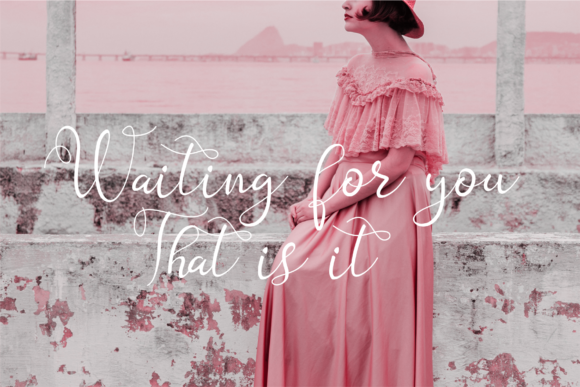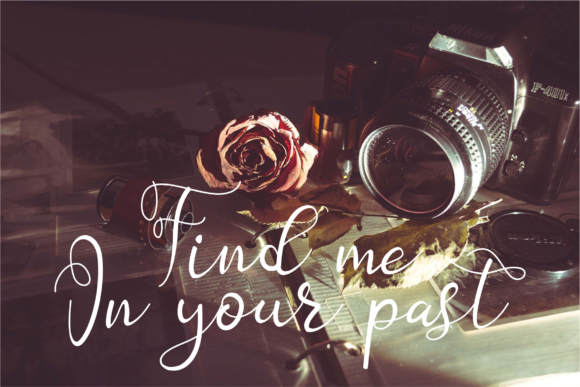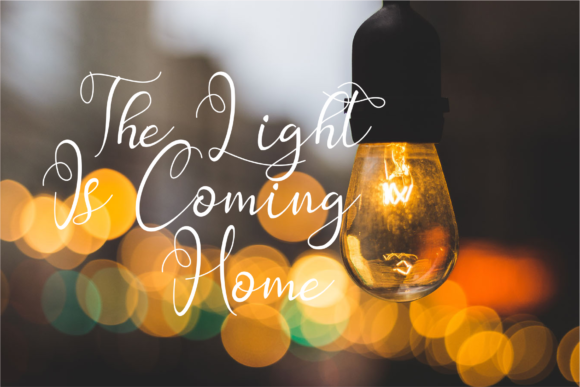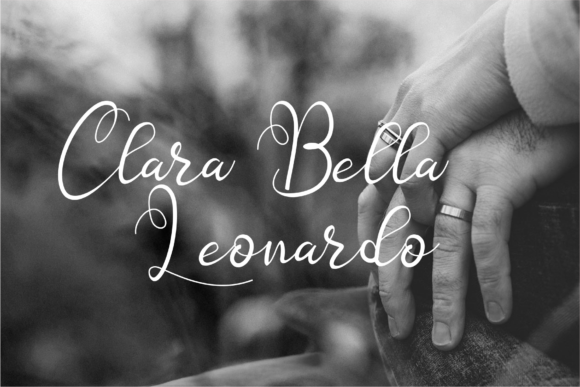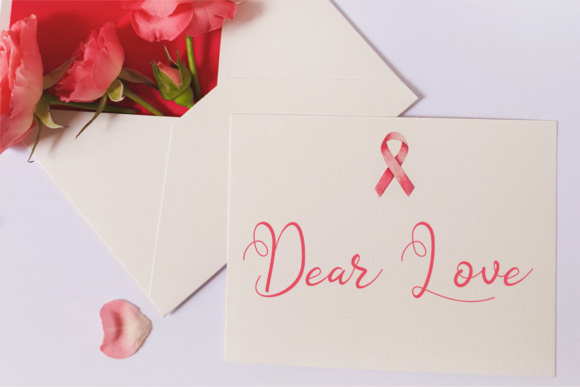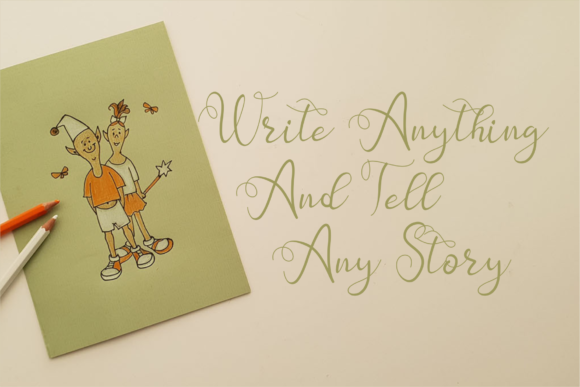
Austin Font: Elevate Your Designs with Elegance and Timeless Style
Are you on the hunt for a font that exudes elegance, sophistication, and a touch of timeless charm? Look no further than the Austin Font, a beautiful, flowing handwritten font that is sure to capture your heart. With its incredibly distinct style, Austin Font is the perfect addition to your favorite projects, allowing you to create spectacular designs that stand out from the crowd.
The Characteristics of Austin Font
Austin Font is described by its elegant touch, which sets it apart from other fonts. Its flowing, handwritten style gives it a unique and sophisticated look that is perfect for a variety of design projects. Whether you’re working on a logo, branding materials, or marketing collateral, Austin Font is sure to bring a level of refinement and poise to your designs.
Why Choose Austin Font?
So, what makes Austin Font so special? Here are just a few reasons why designers and crafters are falling in love with this beautiful font:
- Elegant and Sophisticated: Austin Font boasts an elegant and sophisticated style that is perfect for high-end designs. Its flowing lines and refined look make it ideal for luxury brands, wedding designs, and other high-end projects.
- Timeless Style: Unlike trendy fonts that quickly go out of style, Austin Font has a timeless quality that ensures it will remain relevant for years to come. Its classic look is both versatile and enduring, making it a great investment for designers and crafters.
- Incredibly Distinct: With its unique and distinctive style, Austin Font is sure to set your designs apart from the competition. Its elegant lines and flowing curves make it instantly recognizable, adding a touch of personality to your projects.
- Versatile: Whether you’re working on a digital project or a print design, Austin Font is incredibly versatile. Its clear and legible style makes it perfect for body text, while its elegant lines make it ideal for headings and titles.
Using Austin Font in Your Designs
So, how can you use Austin Font to elevate your designs? Here are a few ideas to get you started:
- Logos and Branding: Use Austin Font to create a sophisticated and elegant logo that sets your brand apart. Its timeless style ensures that your logo will remain relevant for years to come.
- Wedding Designs: Austin Font is perfect for wedding designs, including invitations, programs, and other wedding materials. Its elegant style adds a touch of romance and sophistication to any design.
- Marketing Collateral: Use Austin Font to create eye-catching marketing materials, including brochures, flyers, and posters. Its clear and legible style makes it perfect for body text, while its elegant lines make it ideal for headings and titles.
- Digital Designs: Austin Font is also perfect for digital designs, including social media graphics, email headers, and website titles. Its versatile style ensures that it will look great on any device.
Tips for Working with Austin Font
Here are a few tips for working with Austin Font:
- Use it sparingly: While Austin Font is beautiful, it’s best used sparingly. Use it for headings, titles, and other key elements, and pair it with a simpler font for body text.
- Experiment with colors: Austin Font looks great in a variety of colors, from rich blacks and dark grays to elegant golds and metallics. Experiment with different colors to find the perfect look for your design.
- Pay attention to spacing: As with any font, pay attention to spacing when using Austin Font. Make sure to leave enough room between lines and letters to ensure that the font looks elegant and refined.
| Author | MualanaDesign |
In conclusion, Austin Font is a beautiful, flowing handwritten font that is sure to capture your heart. With its elegant touch, timeless style, and incredibly distinct look, it’s the perfect addition to your favorite projects. Whether you’re a designer, crafter, or DIY enthusiast, Austin Font is sure to elevate your designs and add a touch of sophistication and poise. So why wait? Fall in love with Austin Font today and start creating spectacular designs that stand out from the crowd!